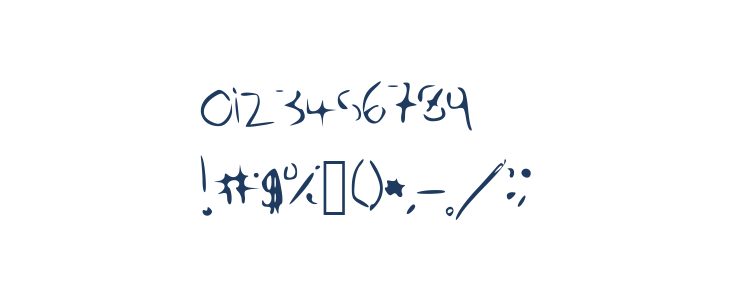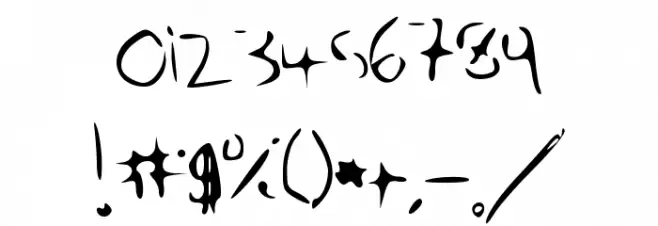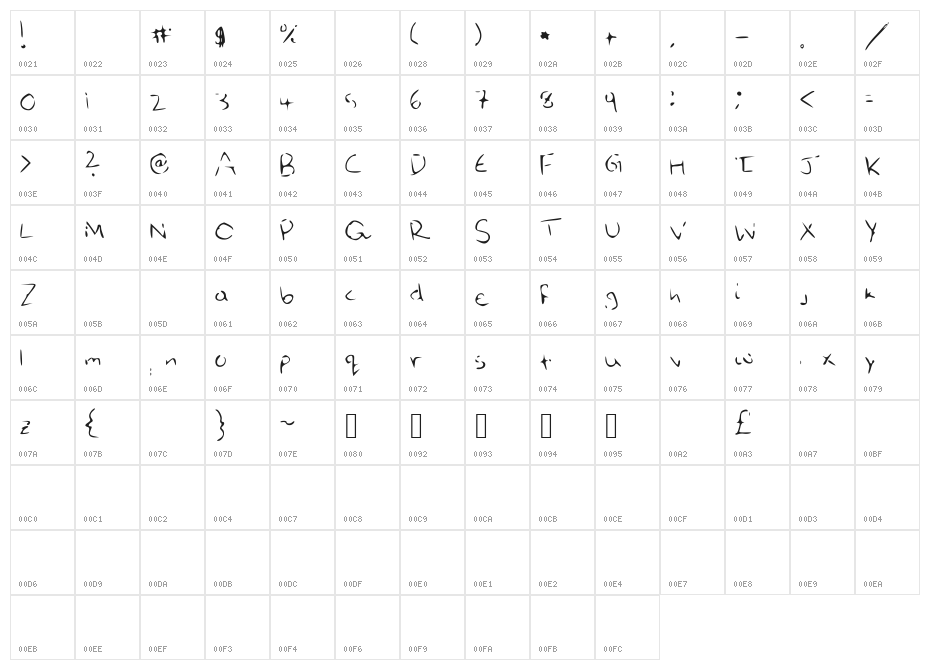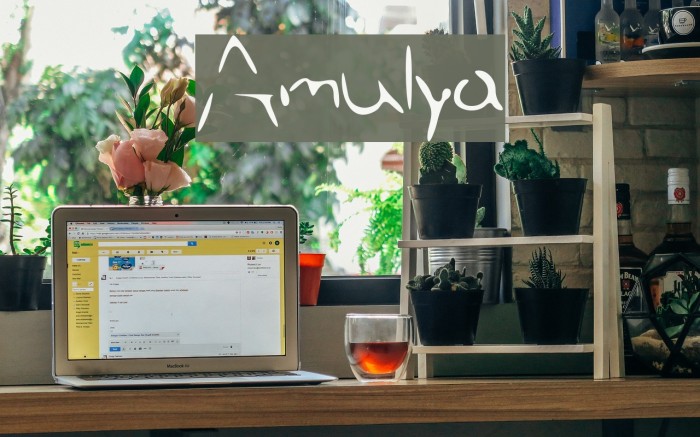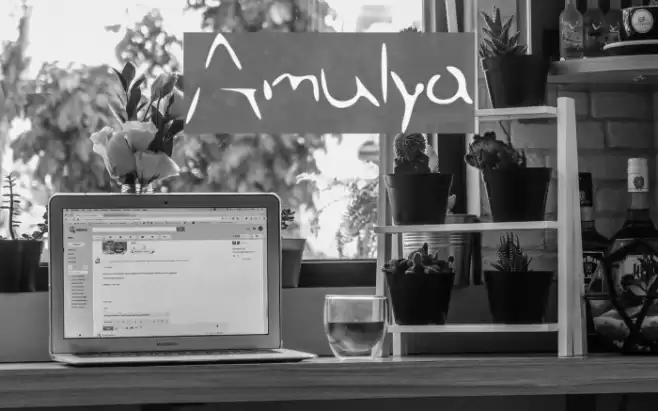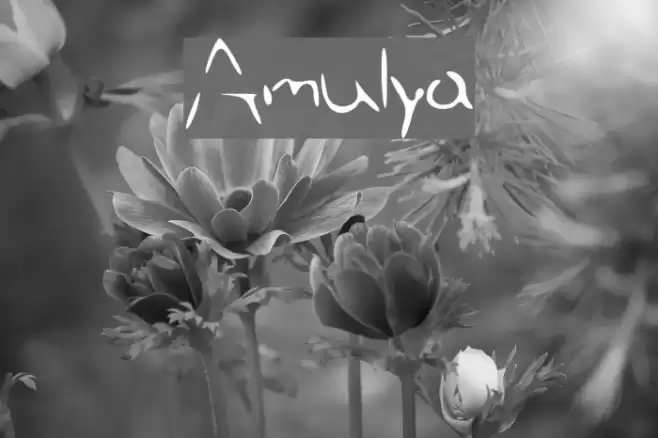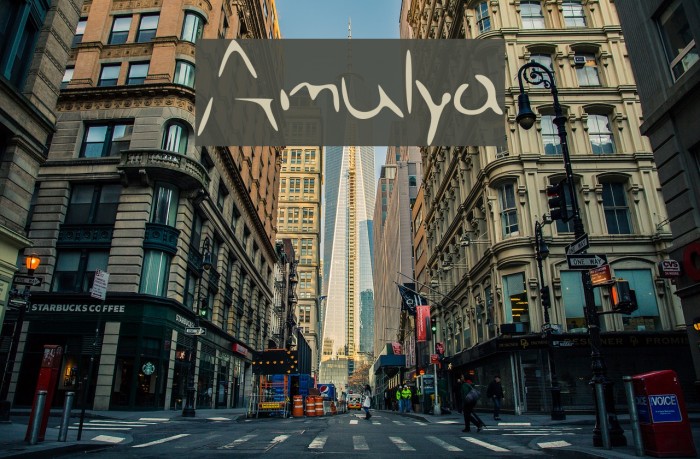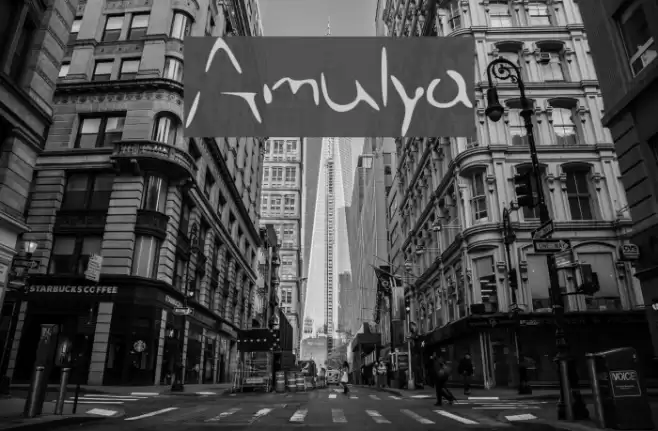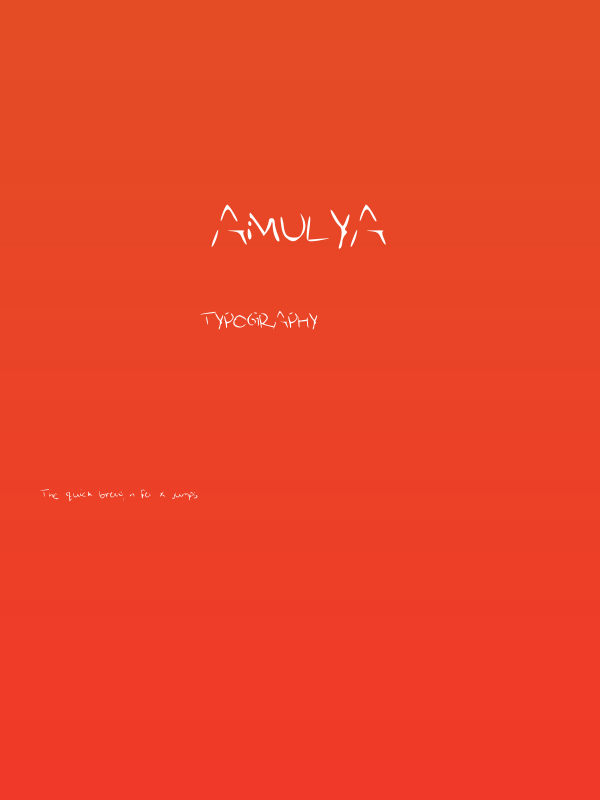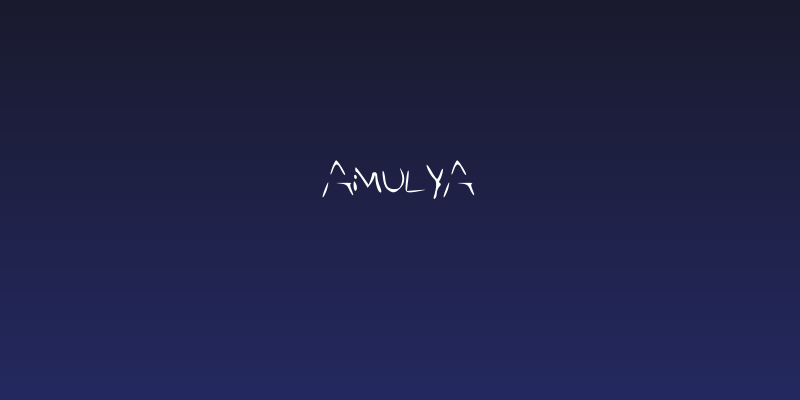
Amulya Font
Amulya Description
This font features a dynamic and expressive style, characterized by its fluid and irregular strokes that mimic a handwritten script. The uppercase letters are bold and slightly angular, giving a sense of movement and energy. The lowercase letters maintain a consistent flow, with some characters extending below the baseline, adding to the font's organic feel. The numerals and special characters are crafted with the same lively and spontaneous aesthetic, making them stand out. Overall, this font exudes a sense of creativity and individuality, perfect for projects that require a personal touch.
| Proposed Projects | Ideal for artistic projects, personal branding, invitations, and creative posters. |